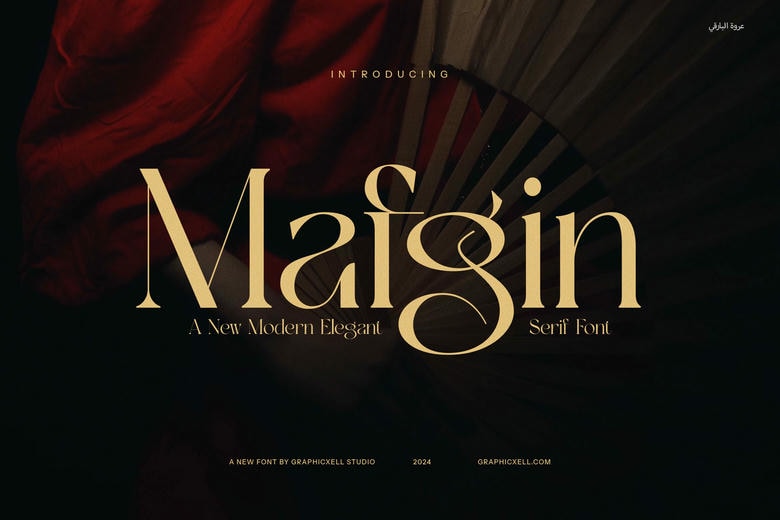
Mafgin Font
Mafgin is one of the best and most carefully designed typeface that includes components of modern style and traditional style. With elegant serifs and fine characters this font is an excellent typeface for those papers or books that need an addition of class and sophistication.
As the logged found Mafgin has a distinct and classy form, the font enhances the prestige of every design, thus suitable for modern and classical designs alike.
Mafgin Serif Font